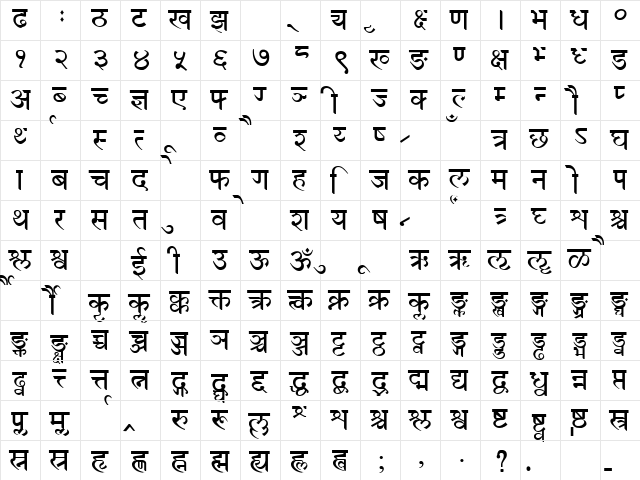
Devanagari New Normal
Design Context for Devanagari New Typeface
Devanagari New offers clean, dependable letterforms without strong stylistic allegiance, making it a practical choice for designers who need flexibility.
Pro Tip: Use Devanagari New in both headline and body roles to test its range before committing to a single application.